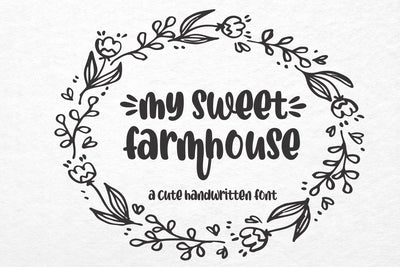
My Sweet Farmhouse
My Sweet Farmhouse is a sweet and quirky handwritten font.
Its natural and unique style makes it incredibly fitting to a large pool of designs.
Use this font for any crafting project that requires a personalized look!
This fonts is ideal for crafting, branding and decorate your any project. This fonts are perfect for wedding invitation or your blog. Also with their help, you can create a logo or beautiful frame for your home. Or just use for your business, book covers, stationery, marketing, magazines and more.